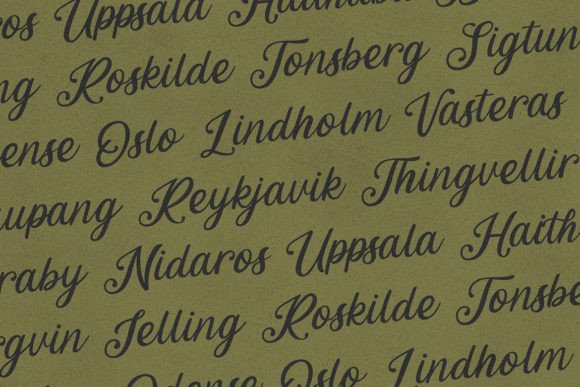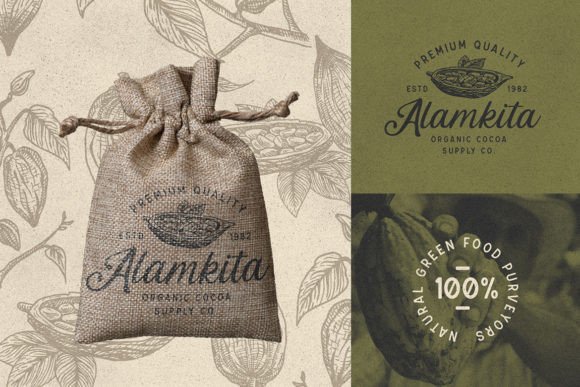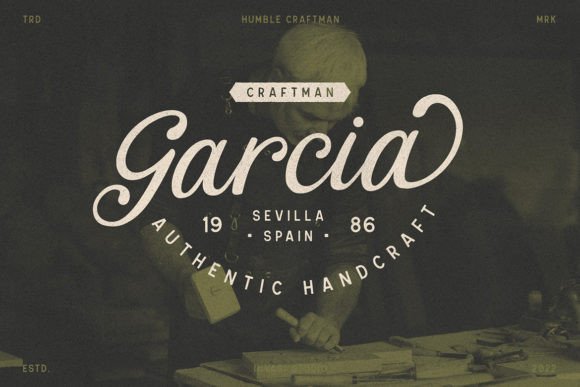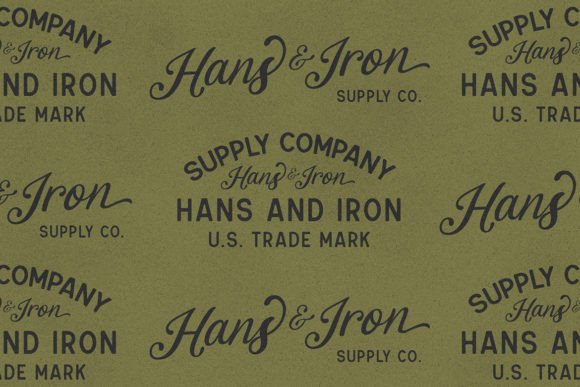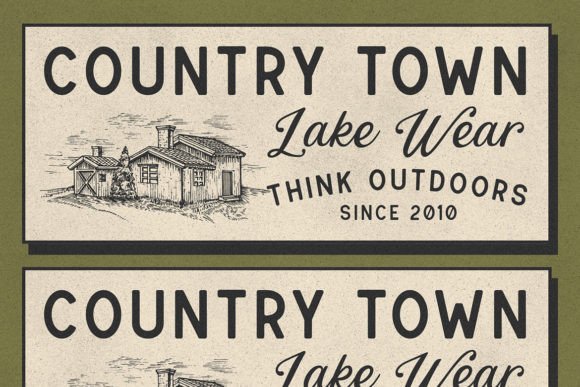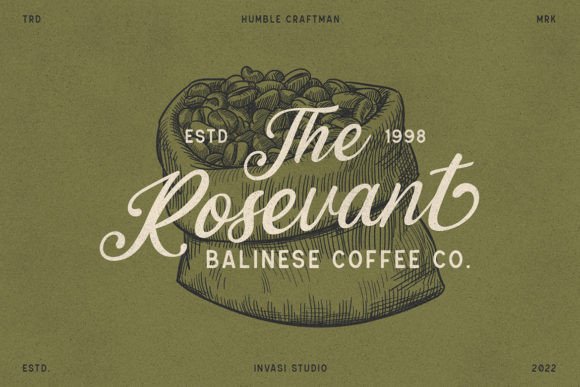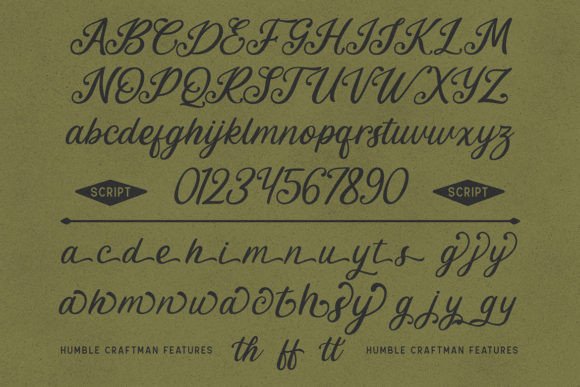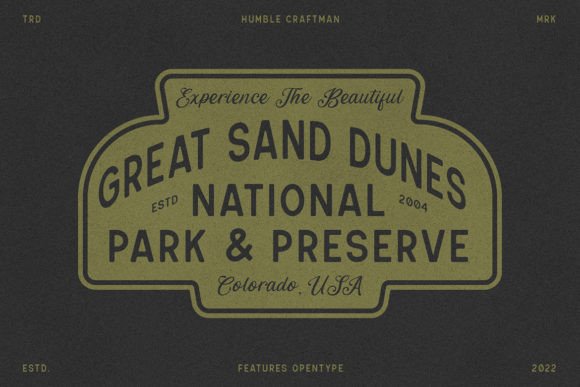
Humble Craftman Font
Humble Craftman is a super versatile font that pairs script and sans typefaces. This unique font blends classic historical ambiance with pop modern retro vibes.
It is also PUA encoded which means you can access all of the amazing glyphs and ligatures with ease!